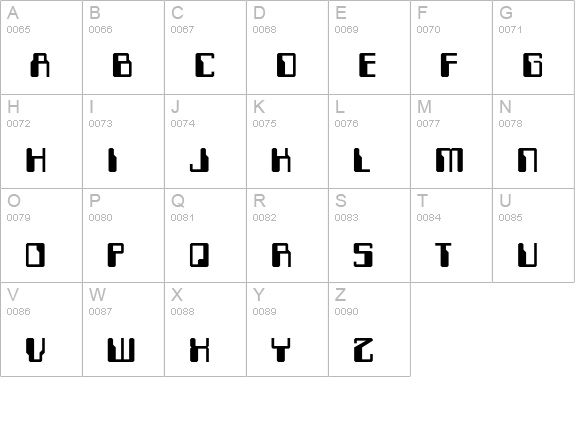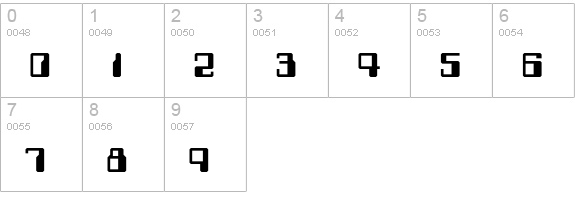
TraxType Font Details
Introducing TraxType, a versatile and captivating font that is sure to leave a lasting impression on any design project. With its unique blend of modernity and elegance, TraxType is the perfect choice for those seeking to elevate their creative endeavors to new heights. Featuring a sleek and sophisticated design, TraxType effortlessly combines clean lines with intricate details, resulting in a visually striking typeface that is both visually appealing and highly legible. Its balanced proportions and carefully crafted letterforms make it suitable for a wide range of applications, from logos and branding to editorial designs and website headers. One of the most remarkable aspects of TraxType is that it is available free of charge. Yes, you read that correctly – this exceptional font can be downloaded freely at FontsMarket.com, making it accessible to designers, artists, and enthusiasts alike. With TraxType, you can unleash your creativity without any restrictions or limitations, as it is generously offered to all who seek to add a touch of style and elegance to their projects. Whether you're working on a professional project or simply looking to enhance your personal creations, TraxType is guaranteed to inspire and impress. Its versatility and timeless appeal make it a valuable addition to any font collection, ensuring that you always have the perfect typeface at your fingertips. In conclusion, TraxType is a captivating and modern font that effortlessly combines elegance and functionality. With its free availability to download at FontsMarket.com, it has become an essential tool for designers who seek to create visually stunning and impactful designs. Embrace the endless possibilities that TraxType offers and let your creativity soar to new heights.